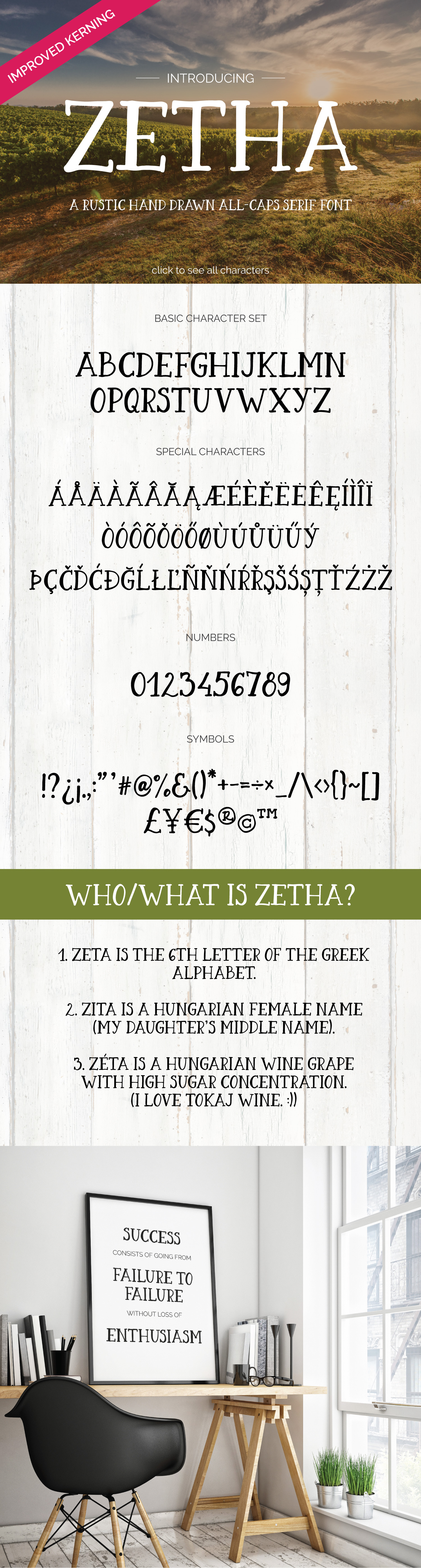
Zetha - a Hand Drawn Serif Font
Zetha is a hand drawn all-caps serif font with a rustic charm available with a huge set of special characters (so you can use it in e.g. French, Romanian, Icelandic, Norwegian, Swedish, Hungarian, Slovak, Czech and so on - click the first image to see the whole character set).
Who/what is Zetha? - Click the first image to read it. :)